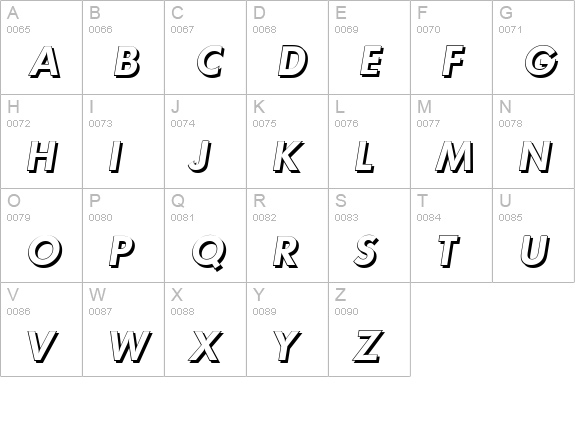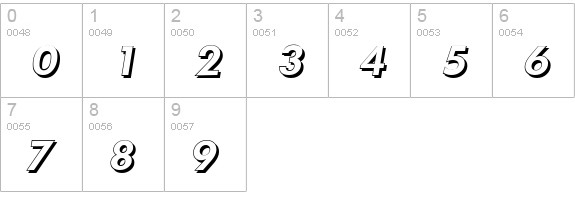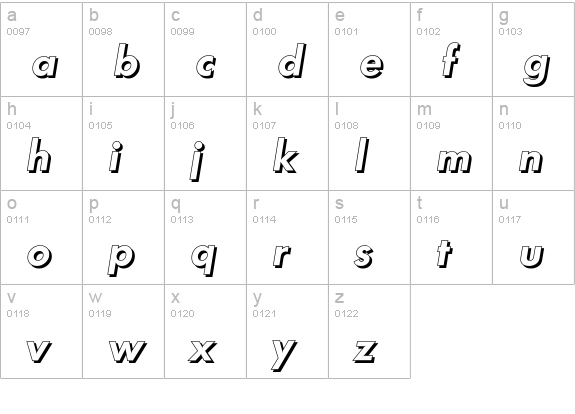
LimerickShadow-BoldItalic Font Details
LimerickShadow-BoldItalic font is a unique and bold typeface that exudes elegance and sophistication. Its slanted italic design adds a touch of flair and creativity to any project. The intricate details of the shadow effect give this font a striking presence on the page, making it perfect for headlines, titles, and other attention-grabbing text. This versatile font is ideal for a wide range of design projects, from branding and advertising to invitations and posters. Its bold and italic style makes a strong visual impact, while maintaining readability and clarity. Best of all, LimerickShadow-BoldItalic font is available for free download at FontsMarket.com. Take advantage of this opportunity to enhance your designs with this stunning and distinctive typeface. Elevate your projects with the elegance and creativity of LimerickShadow-BoldItalic font today!